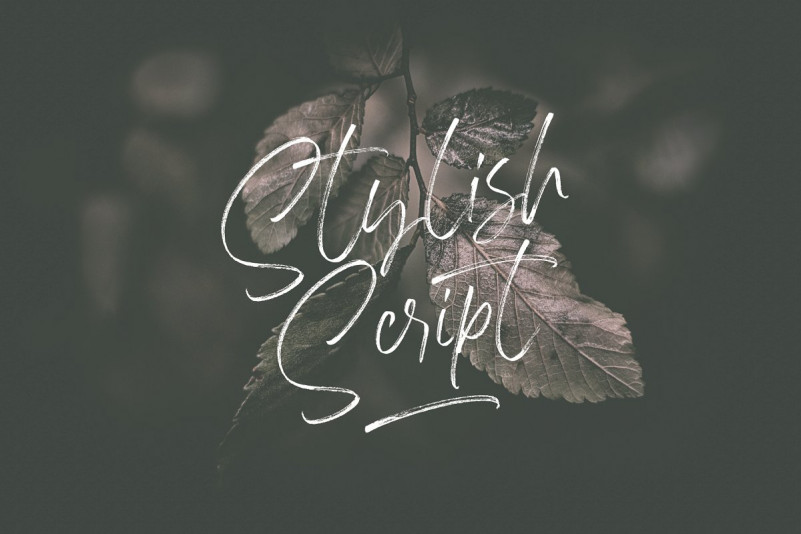
Flassty Handwritten Font
Hello Everyone! Flassty Font is a natural handbrused font with sophisticated and stylish handwritten. Perfect for any awesome project that need hand writing taste. It’s a Hanwritten font with a textured brush and a thin size, matching soft quotes and looking feminine. It’s made by handwriting on paper with a coarse type brush, to produce a consistent texture. Flassty also has ligature which is very suitable if you don’t really like lowercase letters and want to change some letters with available ligature letters. and available lowercase alternatives that you can change according to your taste.